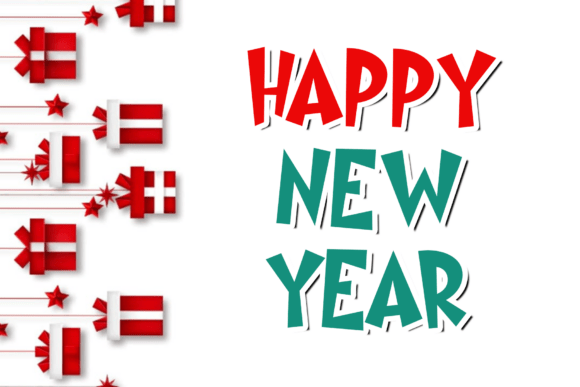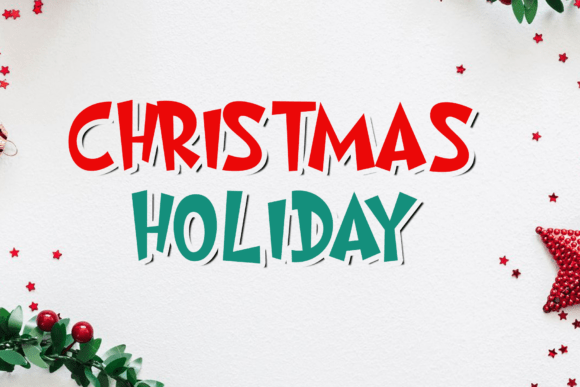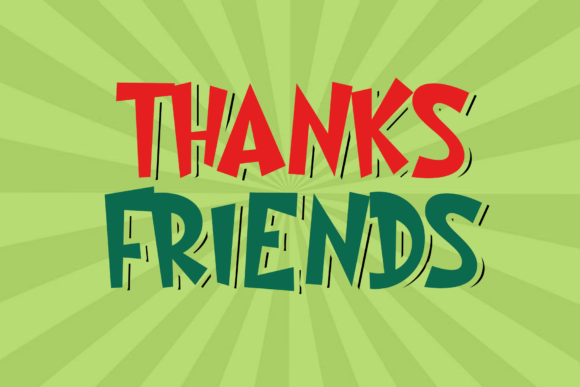
Merry Grinchmas is a bold and quirky display font inspired by the playful spirit of holiday mischief.
With exaggerated curves, uneven letterforms, and cartoon-style shadows, this font channels a fun and festive energy perfect for projects that don’t take themselves too seriously Ideal for Christmas cards, party invites, kids’ crafts, holiday merchandise, or any design that needs a little bit of naughty and nice, Merry Grinchmas stands out with its expressive character and vibrant personality.